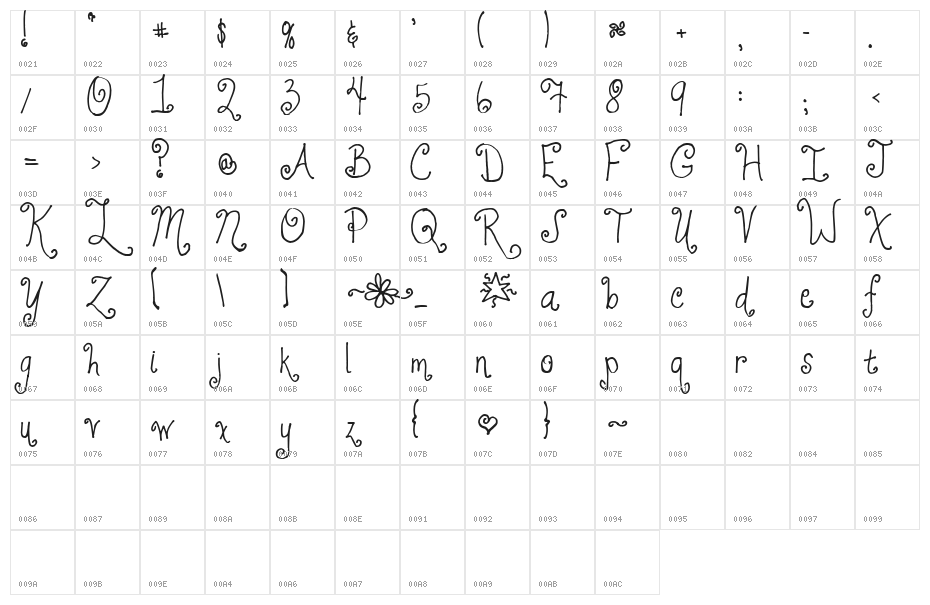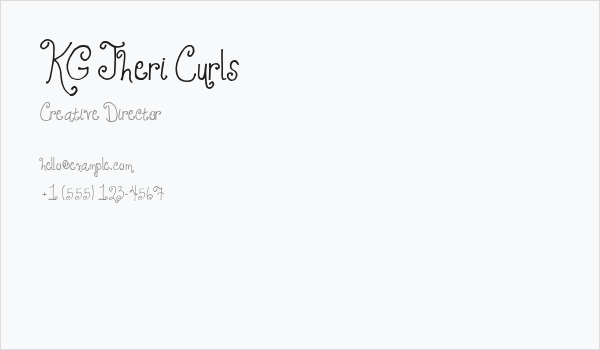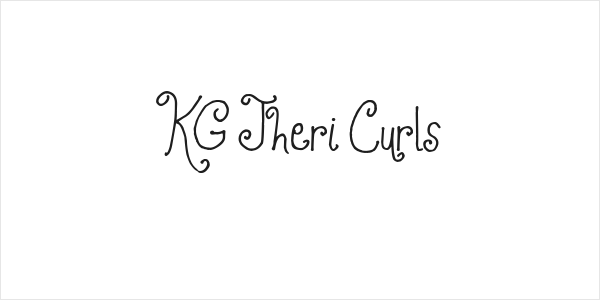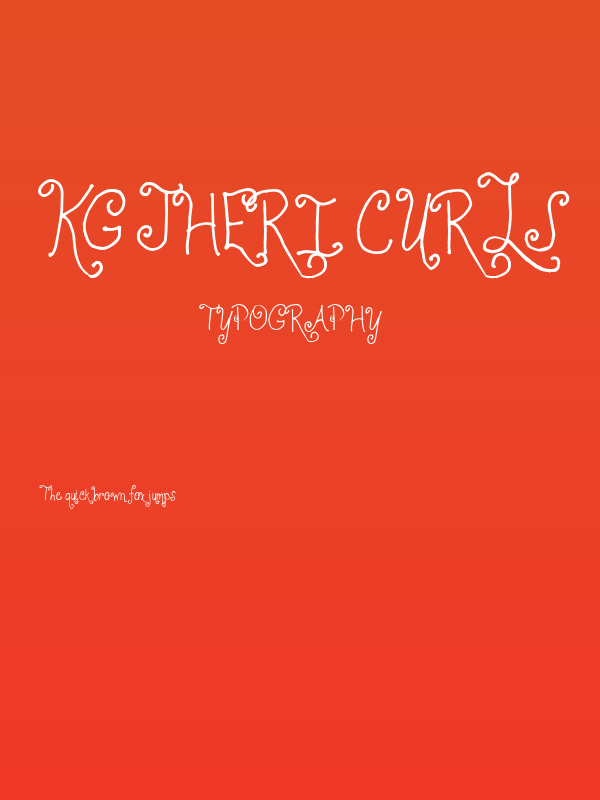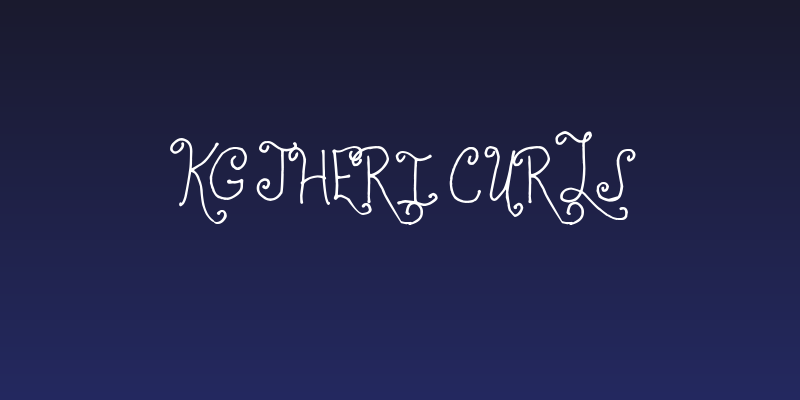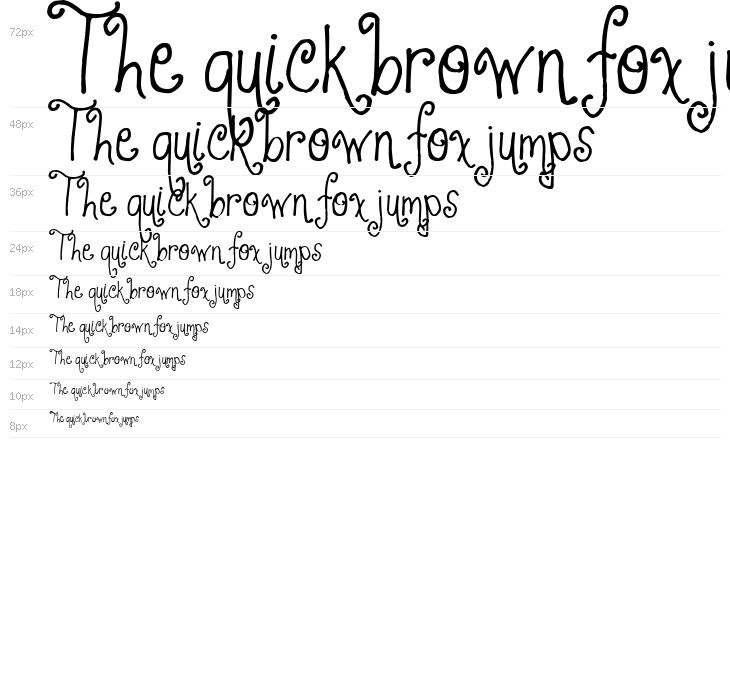
KG Jheri Curls Font
KG Jheri Curls Description
This font features a playful and whimsical design, characterized by its curly and looping strokes. Each letter is adorned with unique swirls and embellishments, giving it a lively and dynamic appearance. The uppercase letters are particularly ornate, with exaggerated curves and flourishes that add a sense of movement and energy. The lowercase letters maintain a similar style, though slightly more restrained, ensuring readability while still retaining the font's distinctive charm. The numerals and special characters are equally decorative, with spirals and loops that complement the overall aesthetic. This font exudes a sense of fun and creativity, making it ideal for projects that require a touch of personality and flair.
| Use Case | Headlines, Logos, Decorative text |
| Proposed Projects | Ideal for children's book covers, playful invitations, greeting cards, and creative branding projects. |